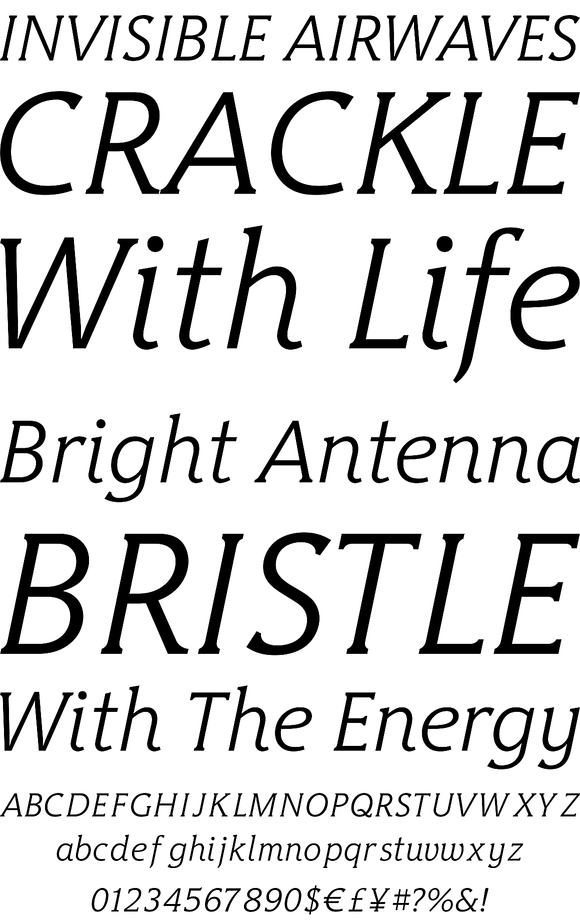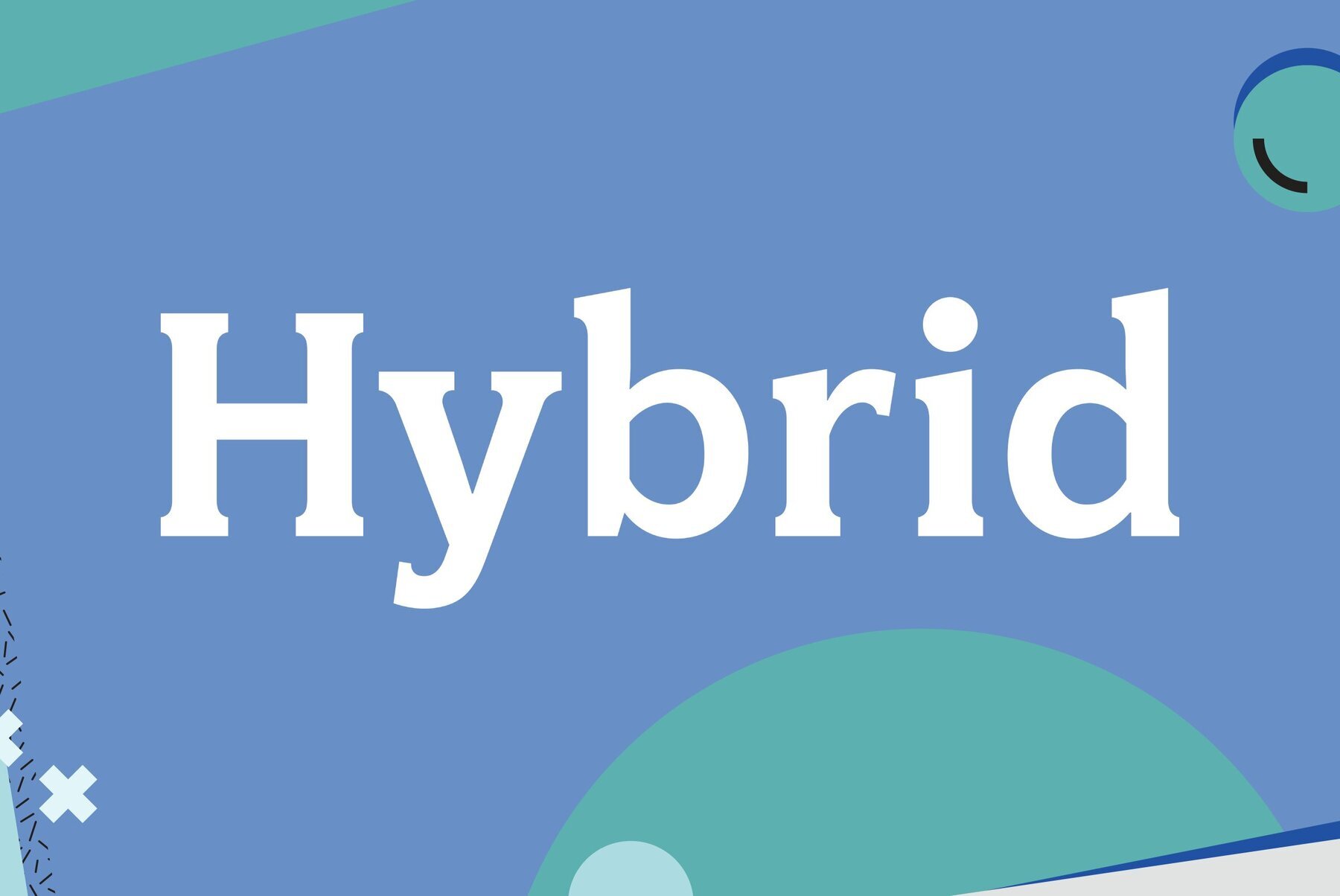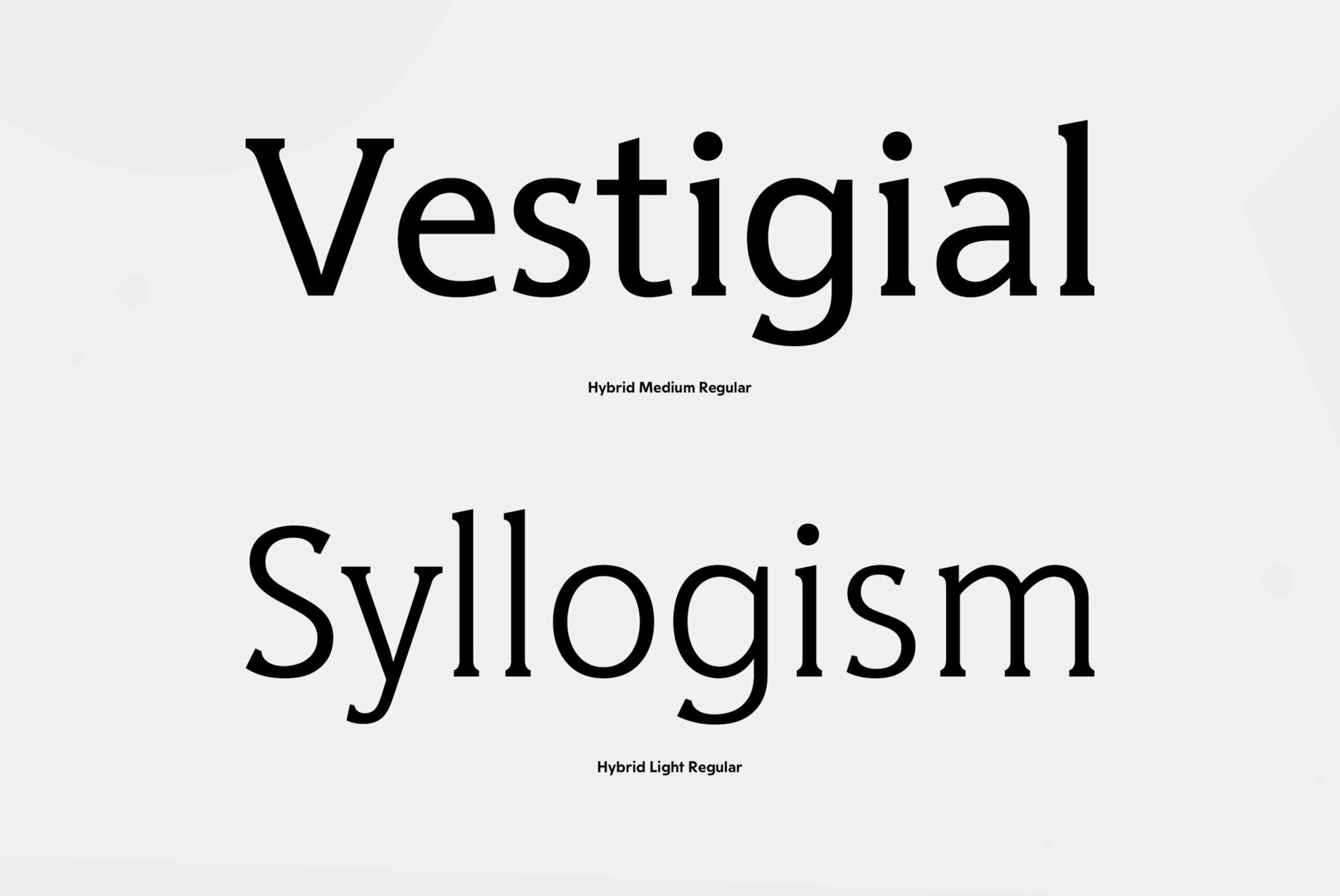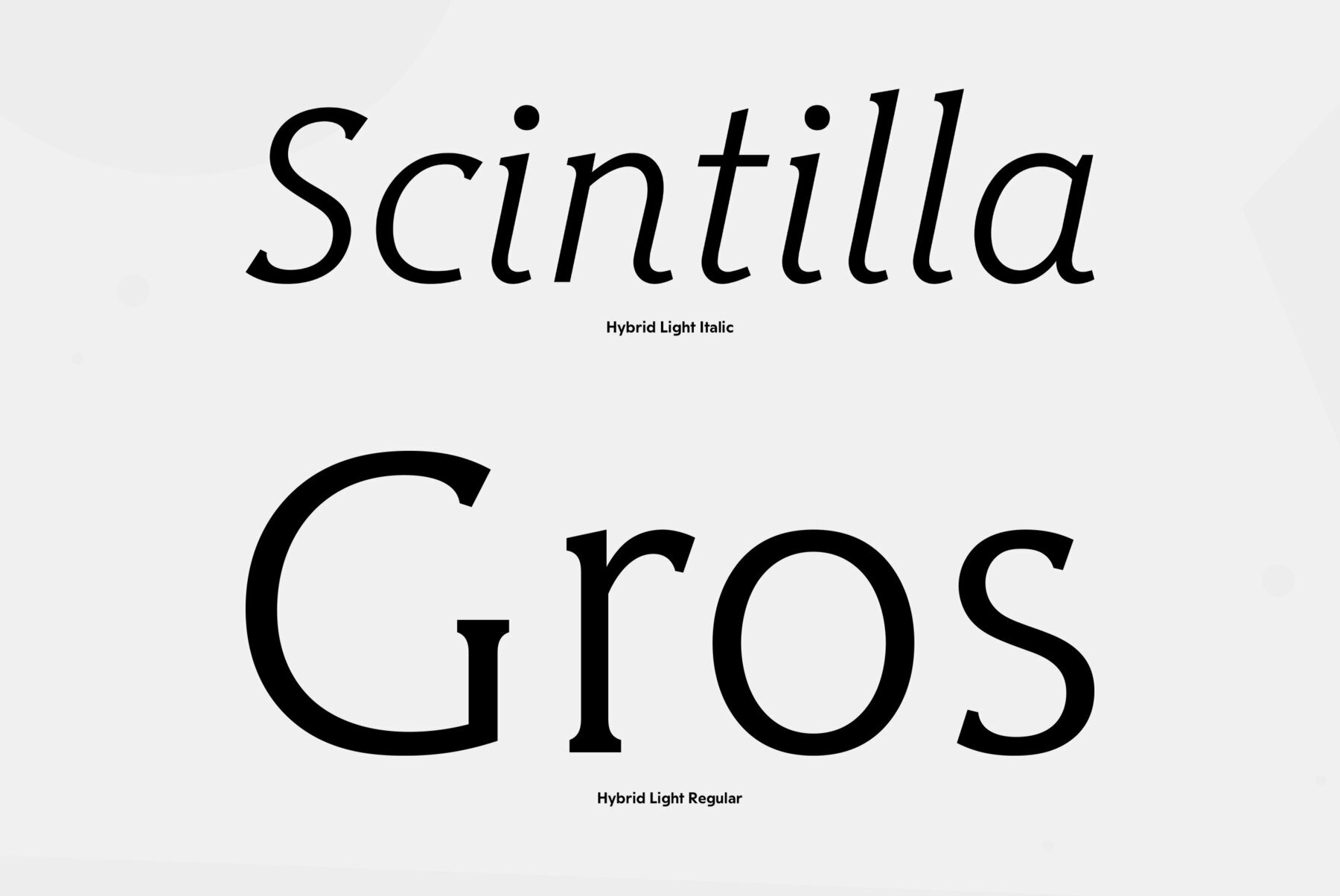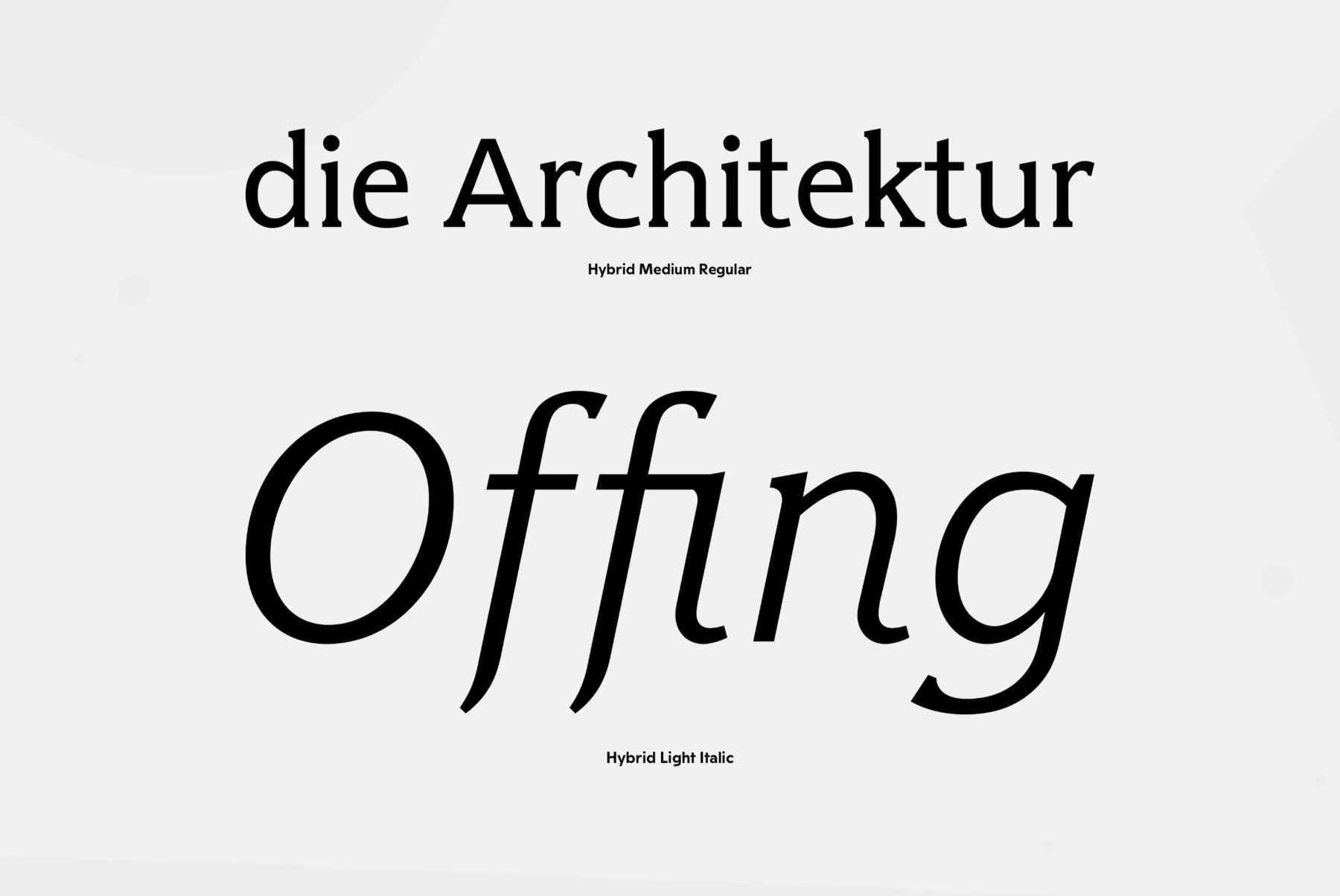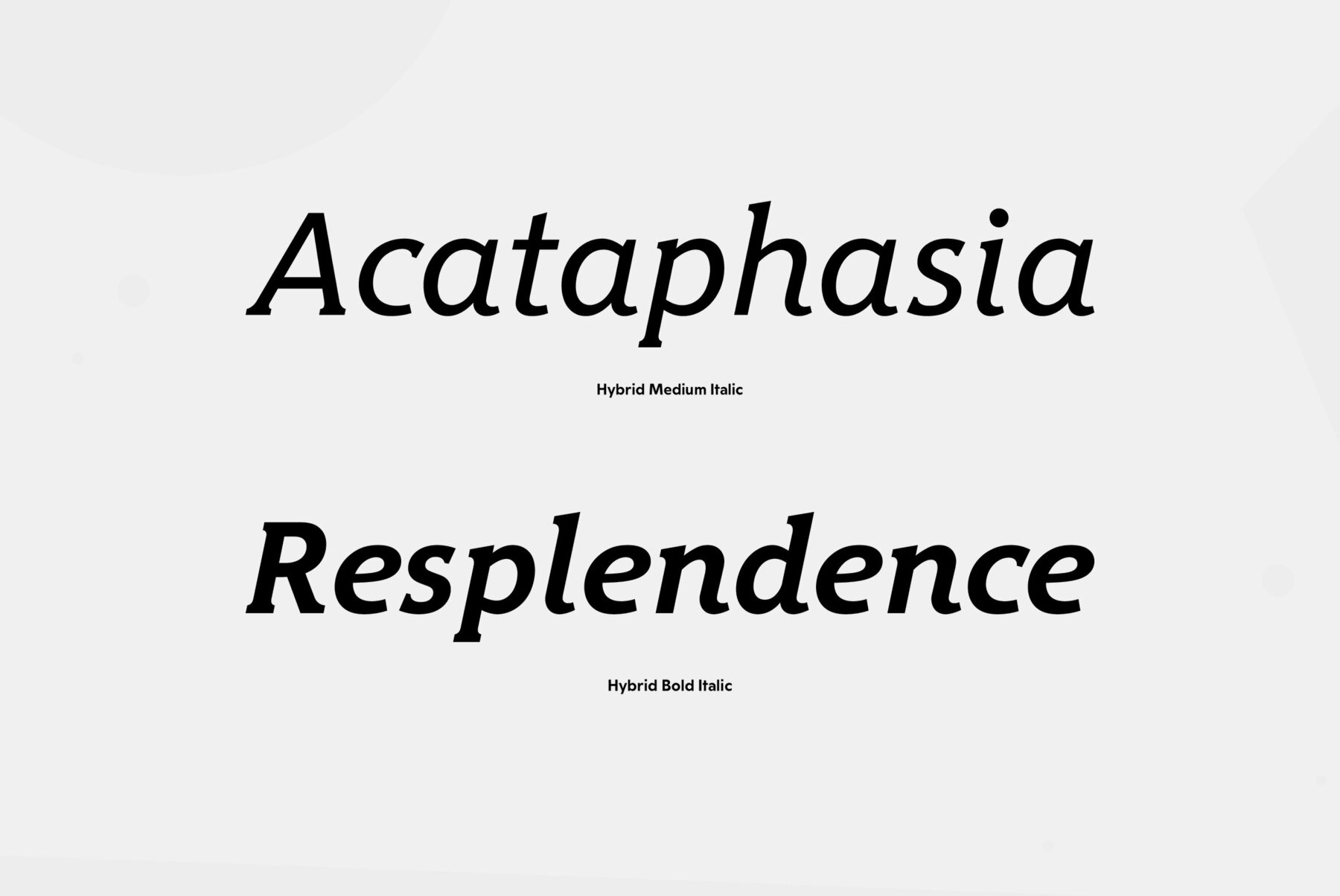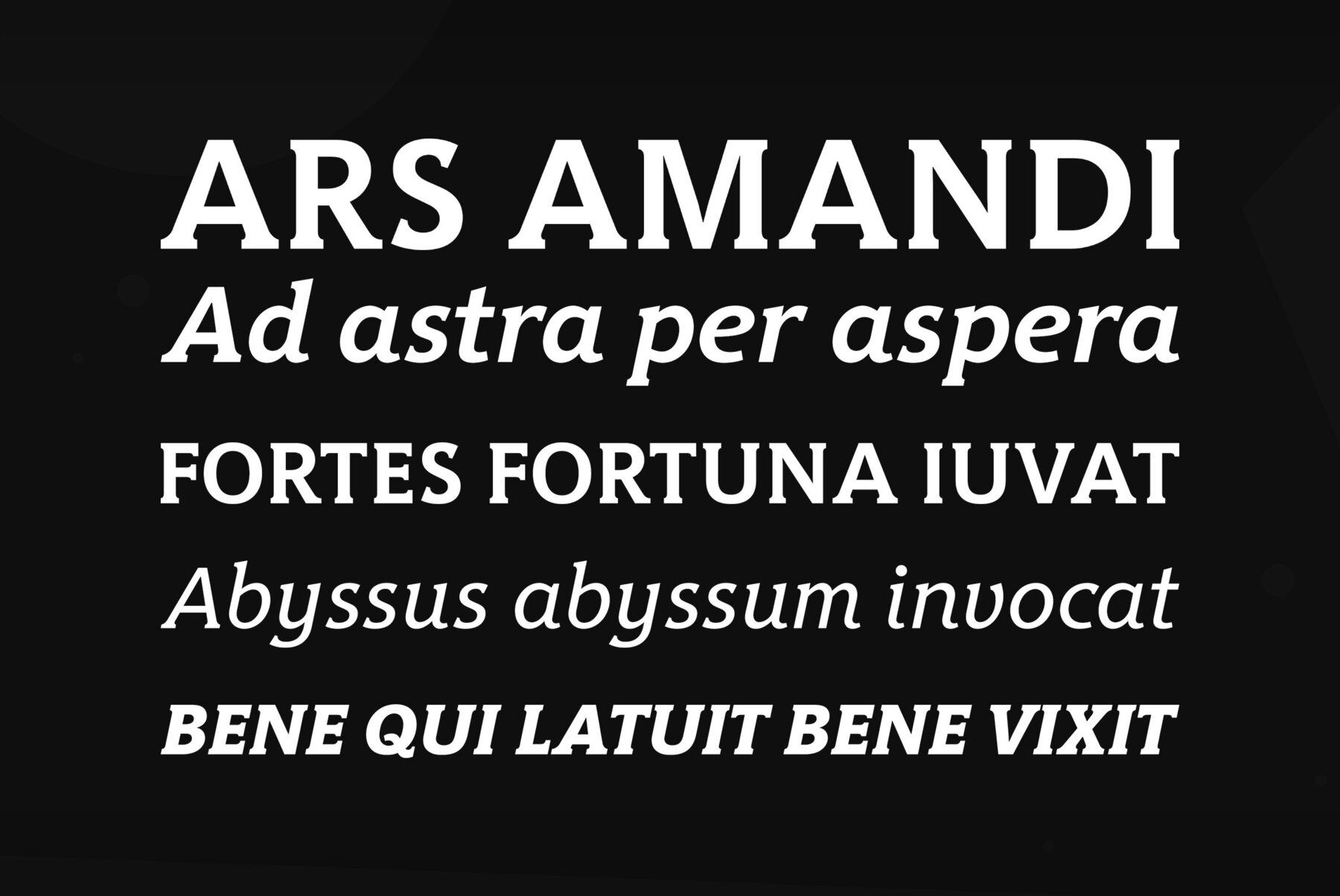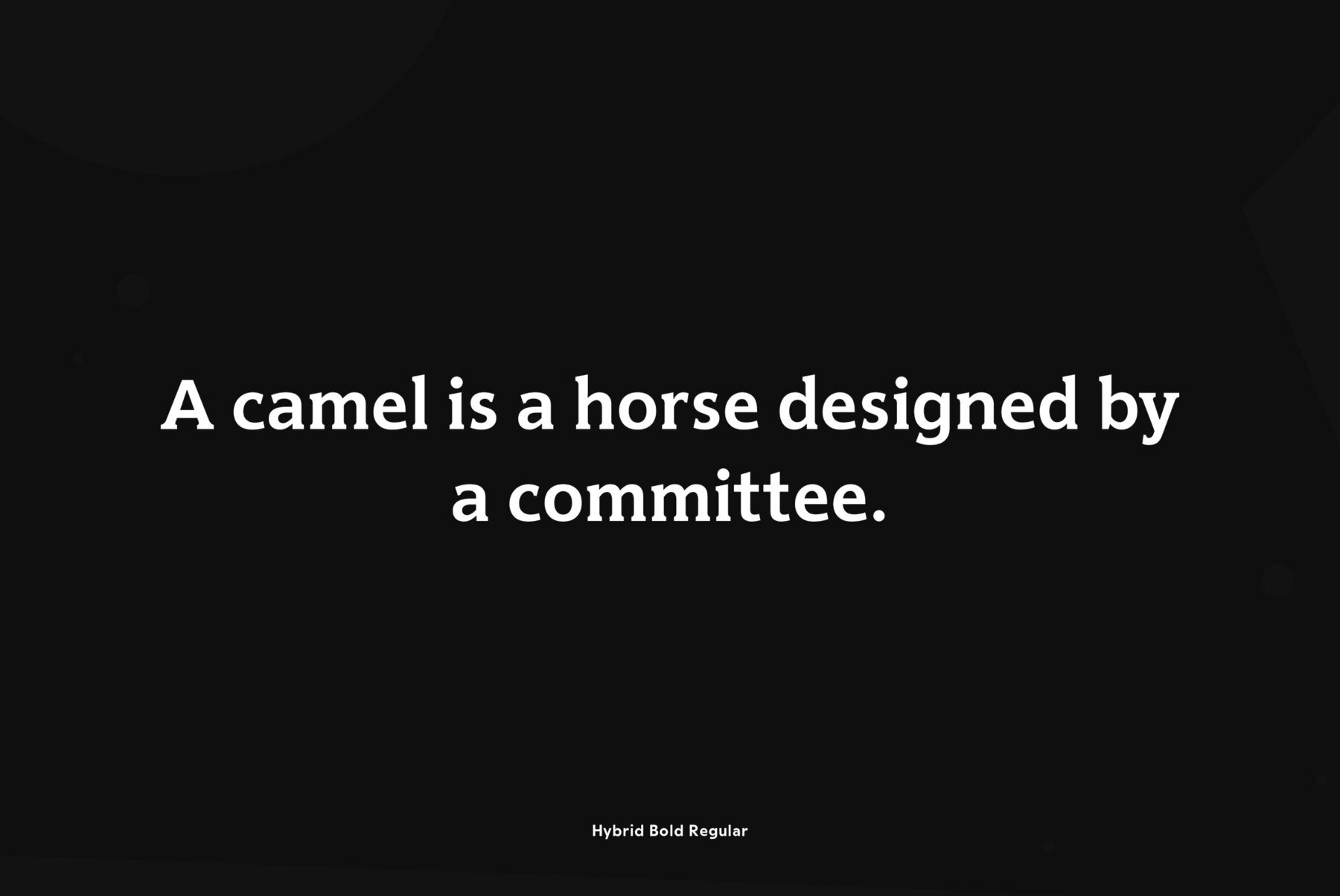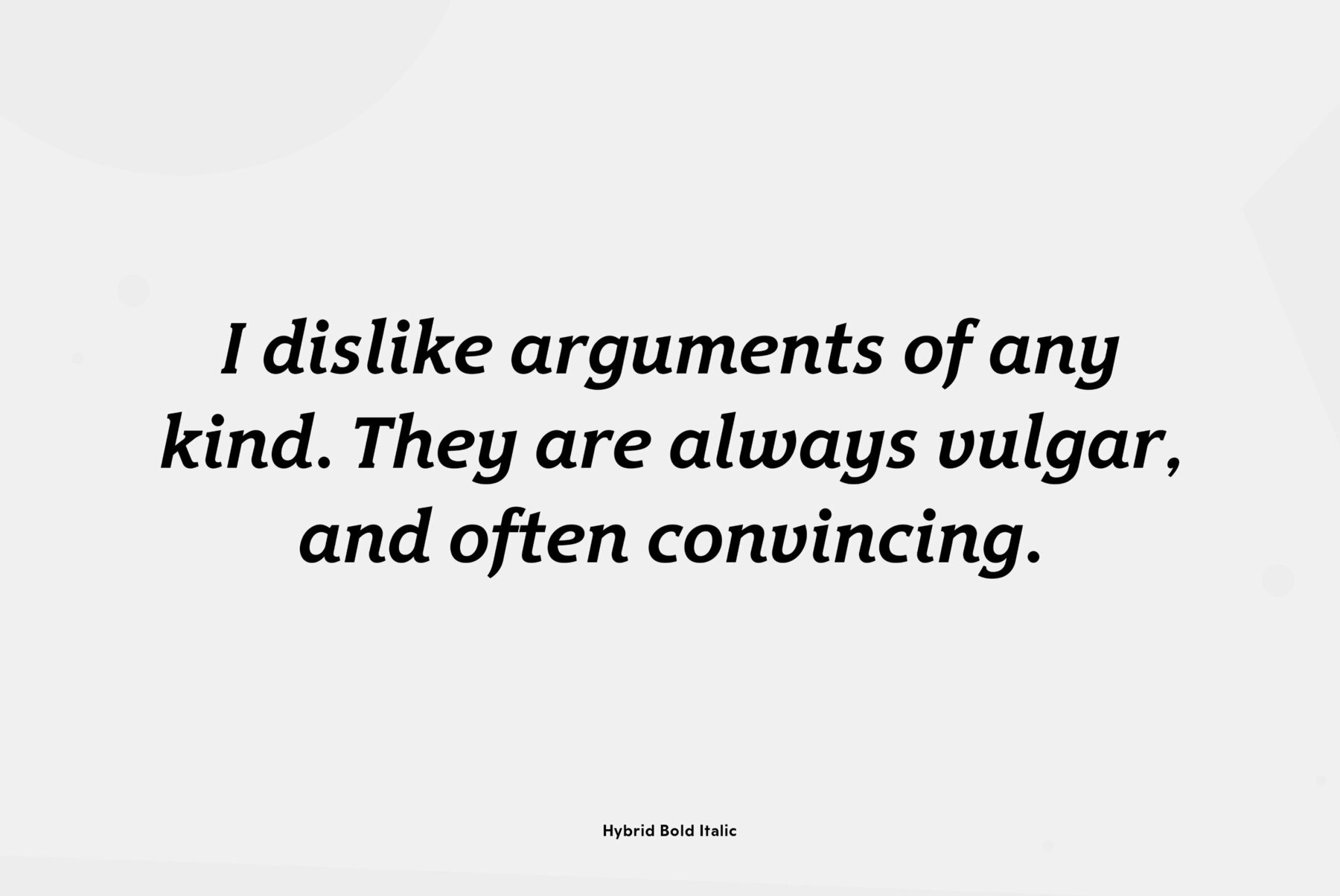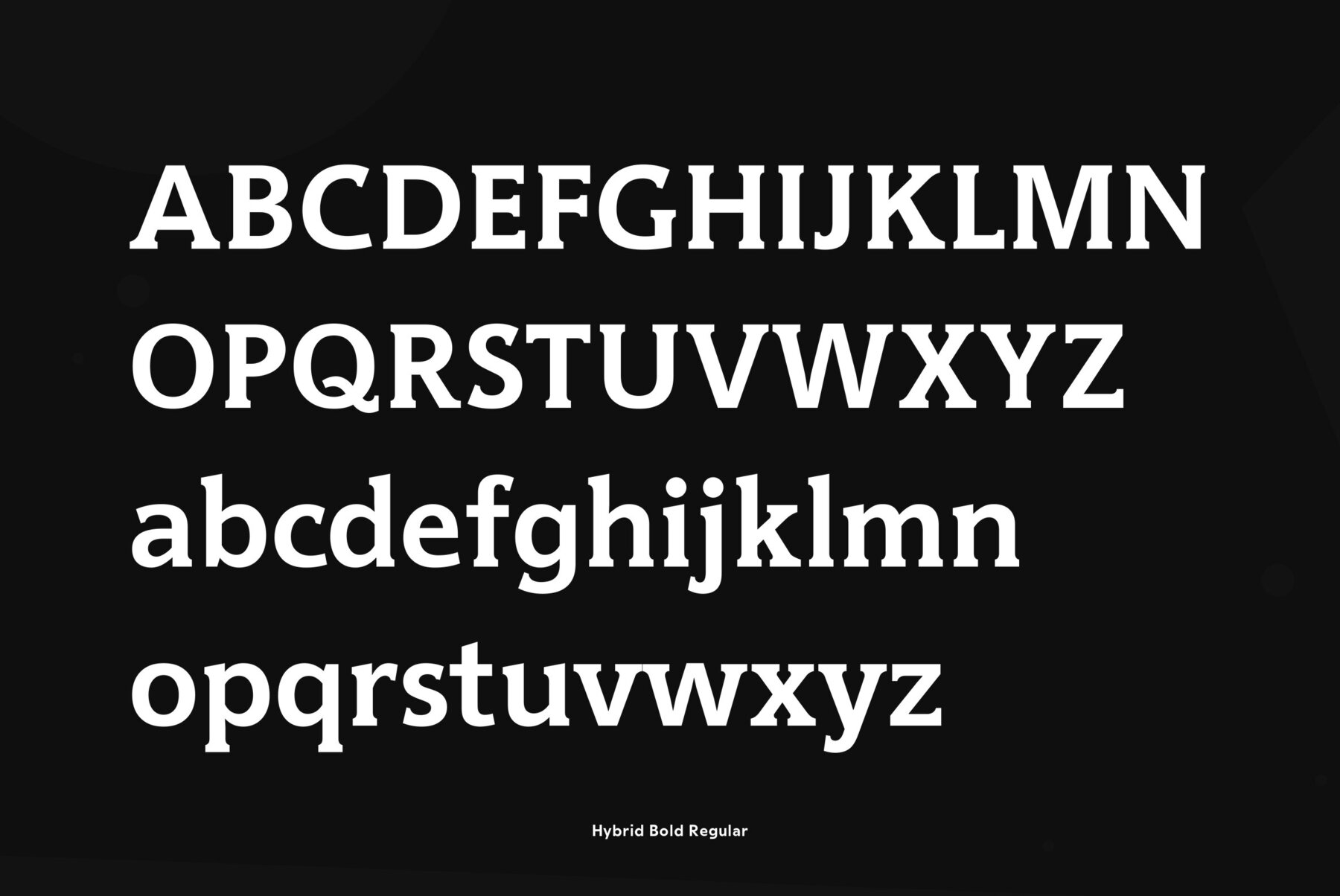
Designed for ParaType in 1999-2003 by Manvel Shmavonyan. Low-contrasted Serif typeface has large x-height and small square cove serifs. For use for text and display typography. Due to its open letterforms and big number of styles the face is a good companion to open humanist Sans. Hybrid design was awarded special prize at Kyrillitsa'99 international type design competition.